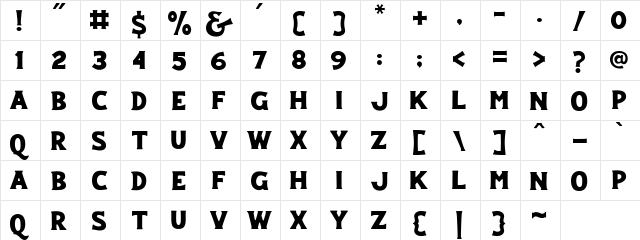
Smithsonian Regular
Design Context for Smithsonian Typeface
Smithsonian offers clean, dependable letterforms without strong stylistic allegiance, making it a practical choice for designers who need flexibility.
Pro Tip: Use Smithsonian in both headline and body roles to test its range before committing to a single application.